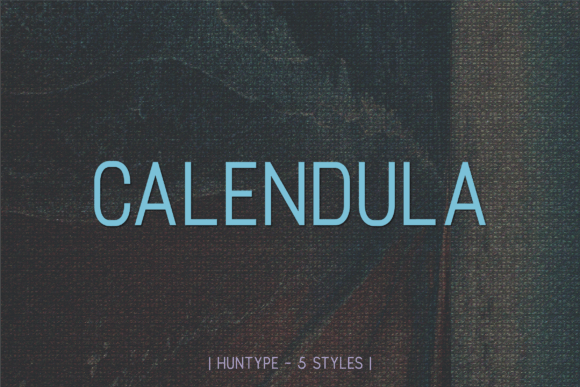
The Designer’s Delight: Exploring the Calendula Font Family
I’ll never forget the frustration of working on a design project, hours spent perfecting every detail, only to be held back by one thing: the font. I was on a tight deadline, and my client wanted a specific look that I just couldn’t nail. That’s when I stumbled upon the Calendula font family. It was like a breath of fresh air – modern, versatile, and precisely what I needed to elevate my design. In this article, I’ll share my experience with Calendula, its features, and how to make the most of it in your designs.
First Impressions: What I Love About Calendula
The Calendula font family is a blend of clean geometric forms and subtle sophistication. Its adaptable style is evident in the precise letterforms and contemporary aesthetic. Here are some things I love about Calendula:
• ✨ Modern and versatile: Calendula is perfect for a wide range of design applications, from elegant branding to bold headlines.
• ✅ Precise letterforms: The font’s clean lines and gentle curves create a harmonious balance that’s both visually appealing and highly legible.
• 🌈 Variety of weights: With five fonts to choose from (Thin, Light, Regular, Bold, and Black), you can use Calendula for everything from subtle text to commanding headlines.
No font is perfect, and Calendula is no exception. Here are a few things to keep in mind:
• 🤔 Limited character set: While Calendula has a wide range of characters, it may not have every special character or glyph you need. Be sure to check the font’s capabilities before committing to a project.
• ⚠️ Not ideal for body text: While Calendula is beautiful, its elegant lines and precise letterforms make it better suited for headlines, titles, and short paragraphs rather than long blocks of text.
The Story Behind Calendula
While the true story behind Calendula’s creation is unknown, it’s clear that the designers had a passion for clean lines, elegant curves, and versatile typography. The result is a font family that’s both modern and timeless, perfect for designers looking to elevate their work.
Q: What is the Calendula font family?
A: The Calendula font family is a modern and versatile font family consisting of five weights: Thin, Light, Regular, Bold, and Black.
Q: Is Calendula suitable for body text?
A: While Calendula is beautiful, its elegant lines and precise letterforms make it better suited for headlines, titles, and short paragraphs rather than long blocks of text.
Q: Does Calendula support OpenType features?
A: Yes, Calendula supports OpenType features like glyphs and stylistic alternates, allowing you to add visual interest and creativity to your designs.